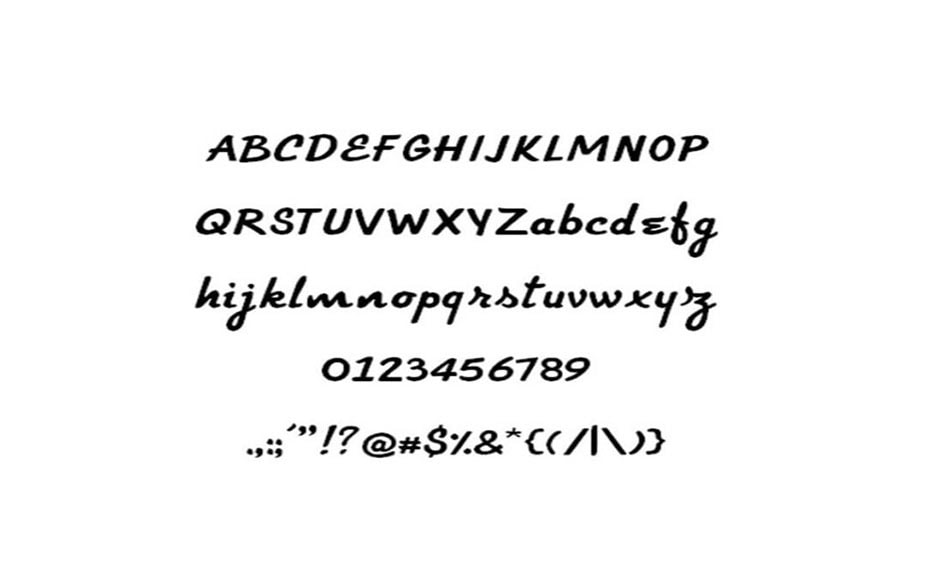
Another logo font is presenting to you, its name is Fender Logo Font. That is basically used in the Fender logo, a musical gadgets company. This company has manufactures stringed instruments, amplifiers, and bass guitars.
Due to this company’s popularity, this font got tremendous success. Because it looks so dashing and unique. So, several designers want to work along with that. Maybe you are also one of them.
The original name of this font family is Strato Font that has created by Bastien Sozoo. It belongs to handwritten fonts because all letters are created by hand.
All letters are created with a brush. In which the designer has added more curves just make it more beautiful. So, this elegant featuring an amazing bold look with fancy curves.
Due to its super cool texture, you can use it for creating logos, quotes, printing, labeling, product designs, special event cards, game graphics, cartoon posters, stationary, and many more.
The Fender Font has support in 6 languages including Albanian, Dutch, and Zulu. Also, it can create amazing pairs with basic fonts like Magra Font and Gandhi Sans Font.